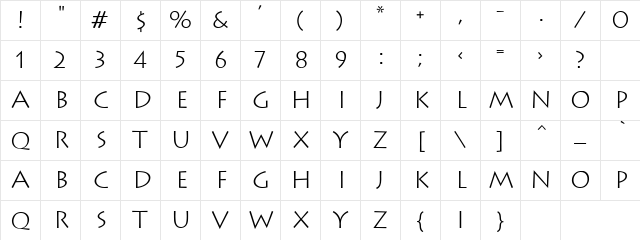
Lithos Regular Free Font
Lithos Regular
Design Context for Lithos
Lithos is a composed and adaptable typeface that performs quietly and consistently across a wide range of design contexts.
Pro Tip: Use Lithos in both headline and body roles to test its range before committing to a single application.